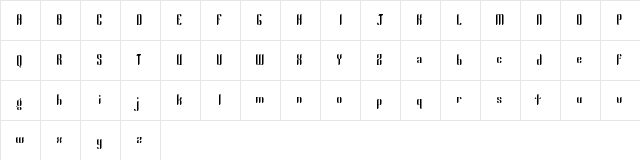
151_helenam Regular
| Designer | lizzie_mal |
151_helenam is a composed and adaptable typeface that performs quietly and consistently across a wide range of design contexts.
Pro Tip: Pair 151_helenam with a font of contrasting weight or personality to build a more expressive typographic hierarchy.